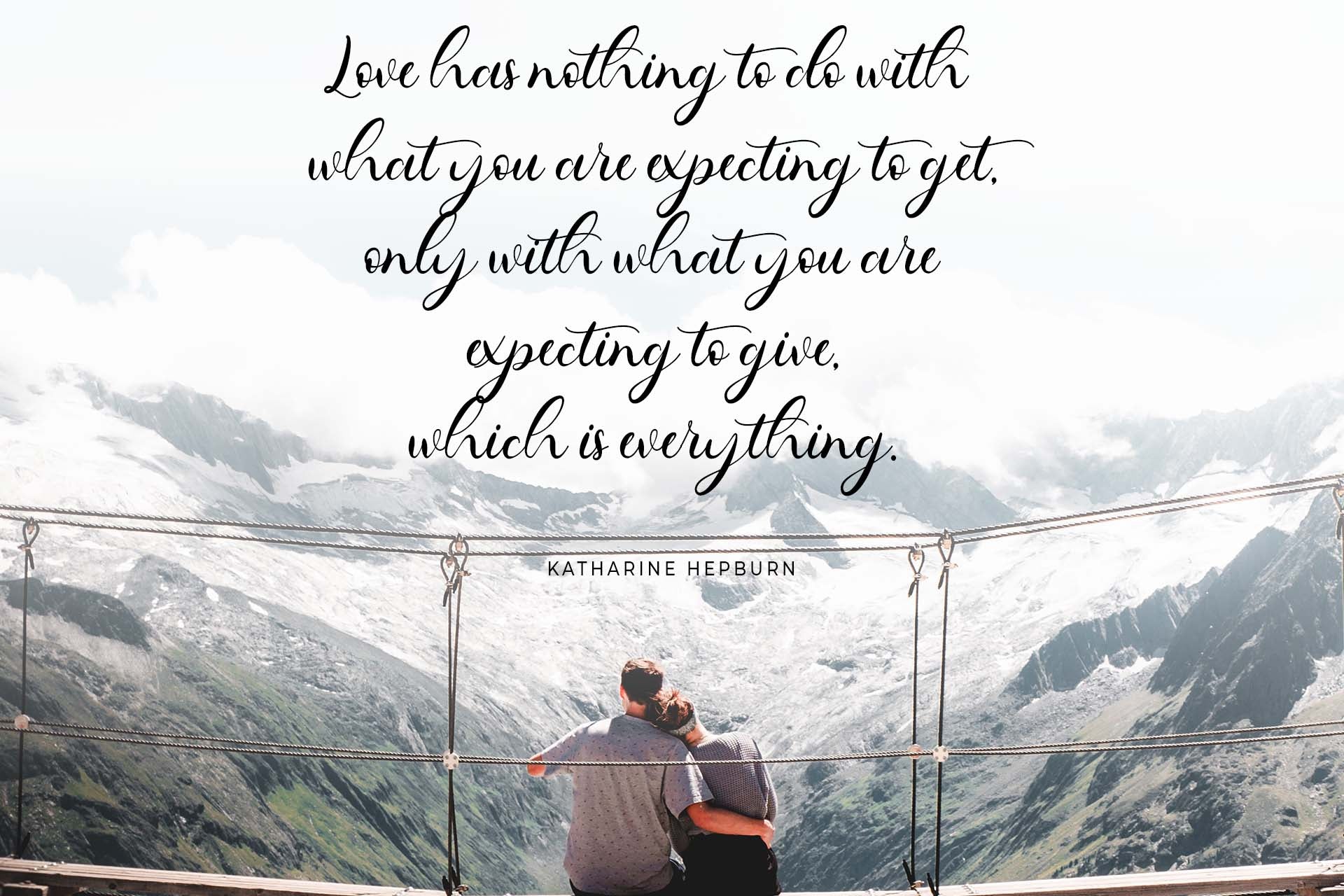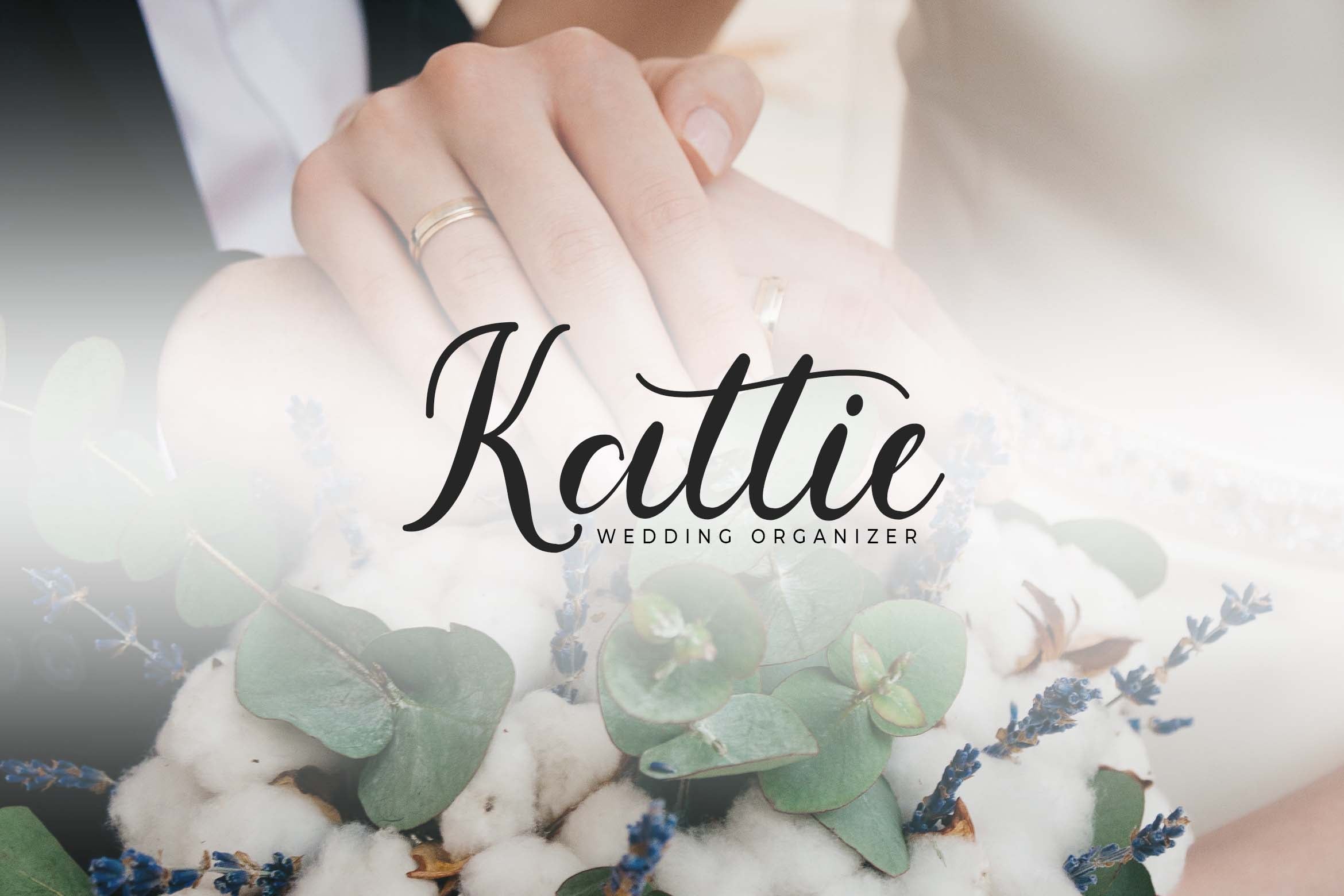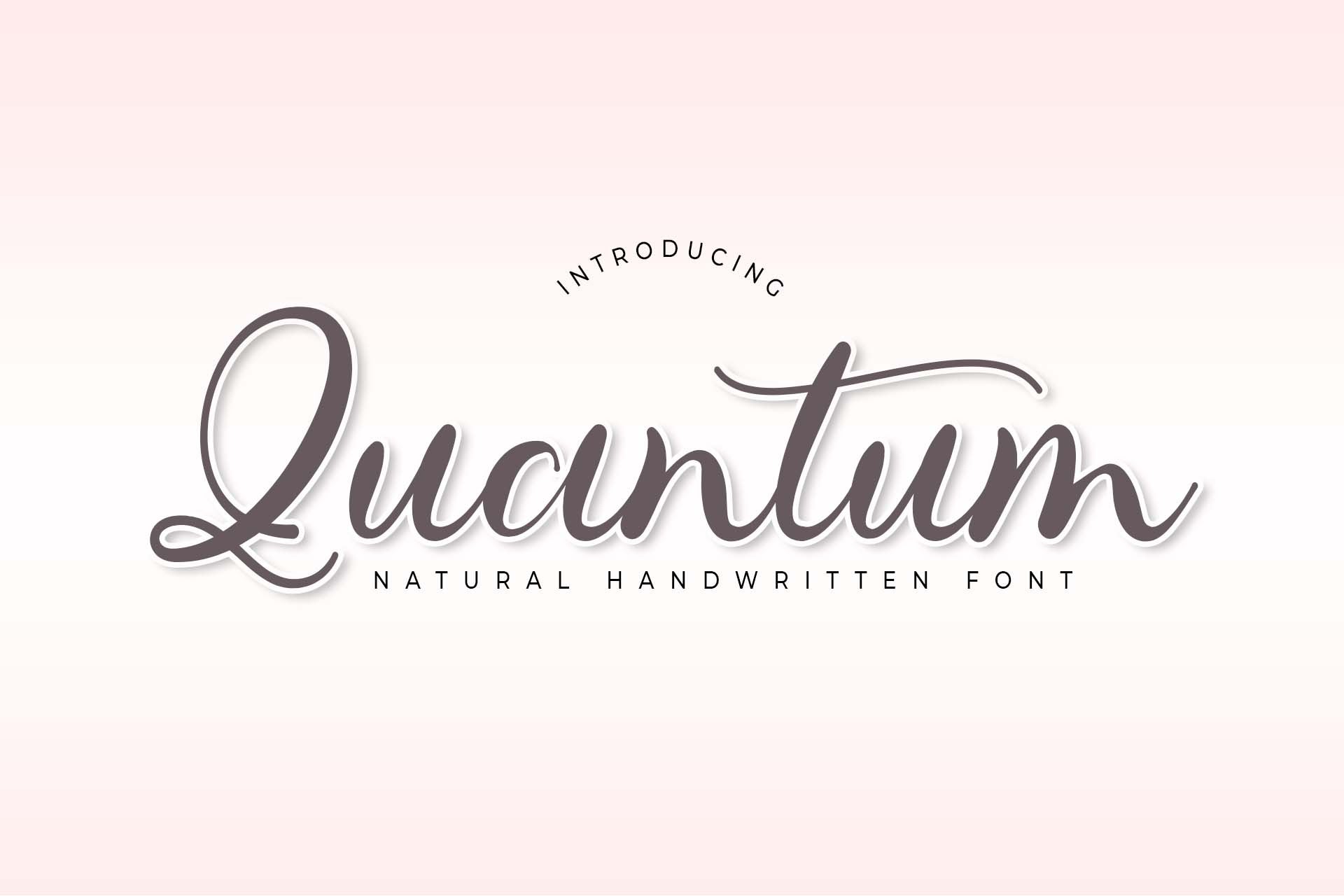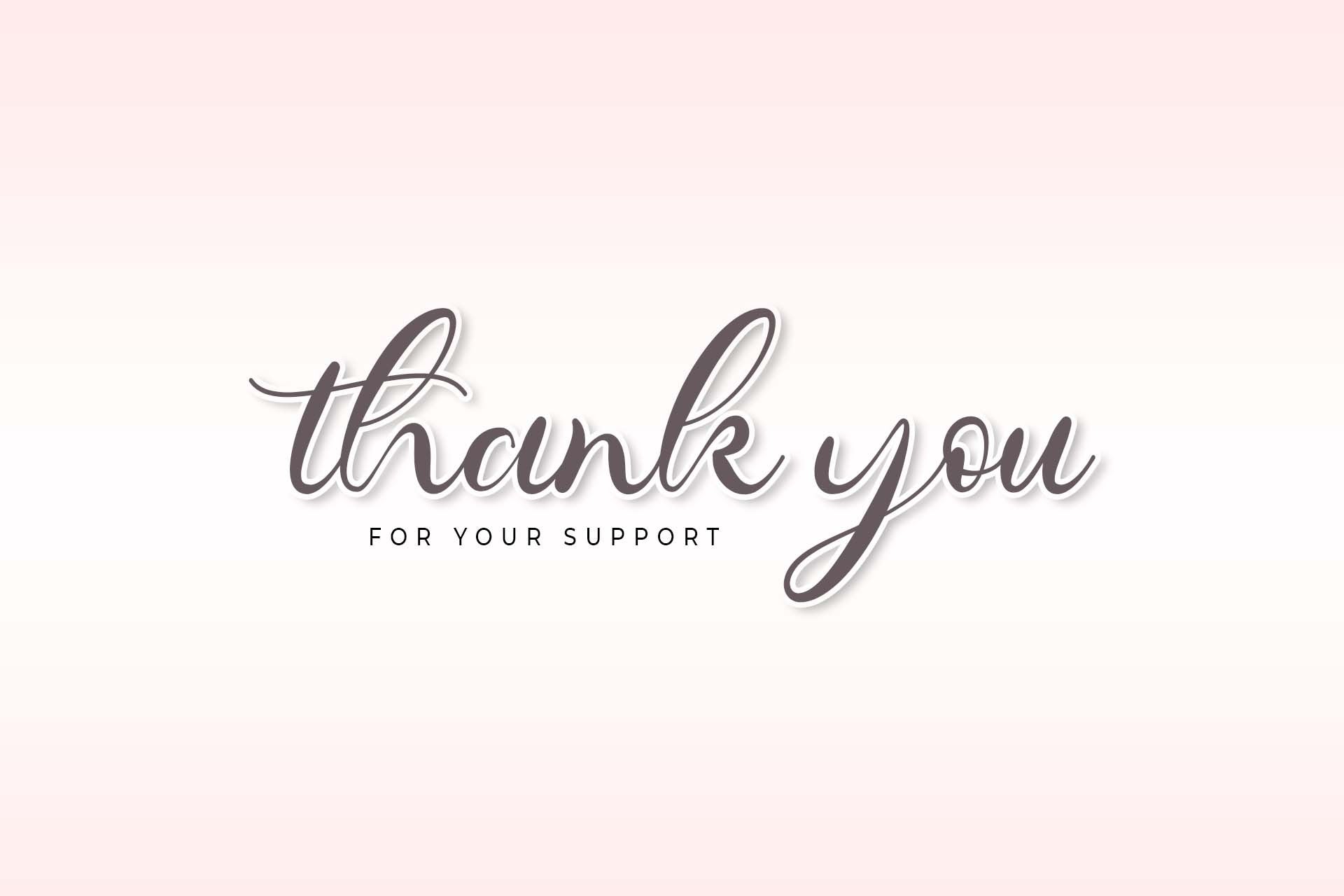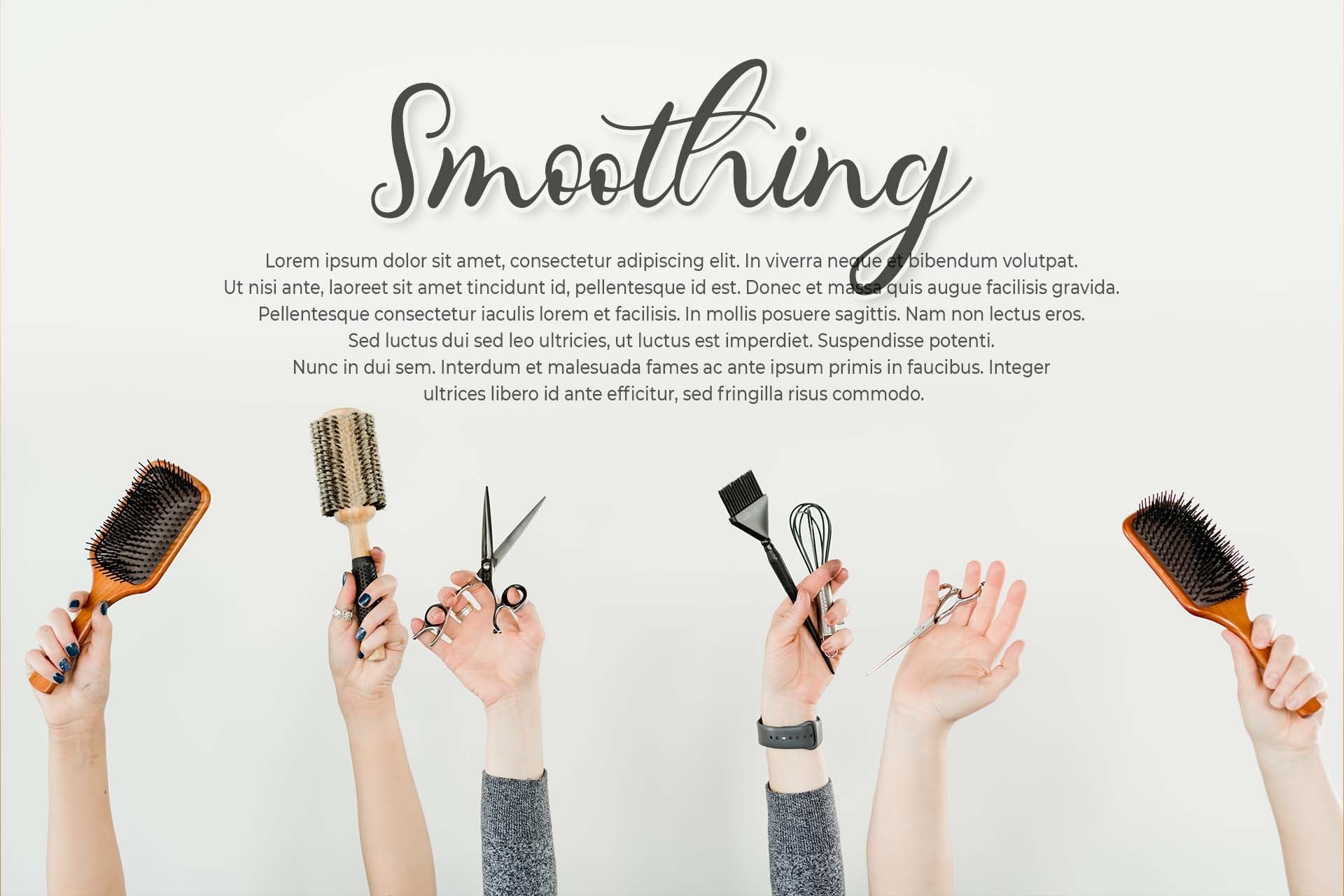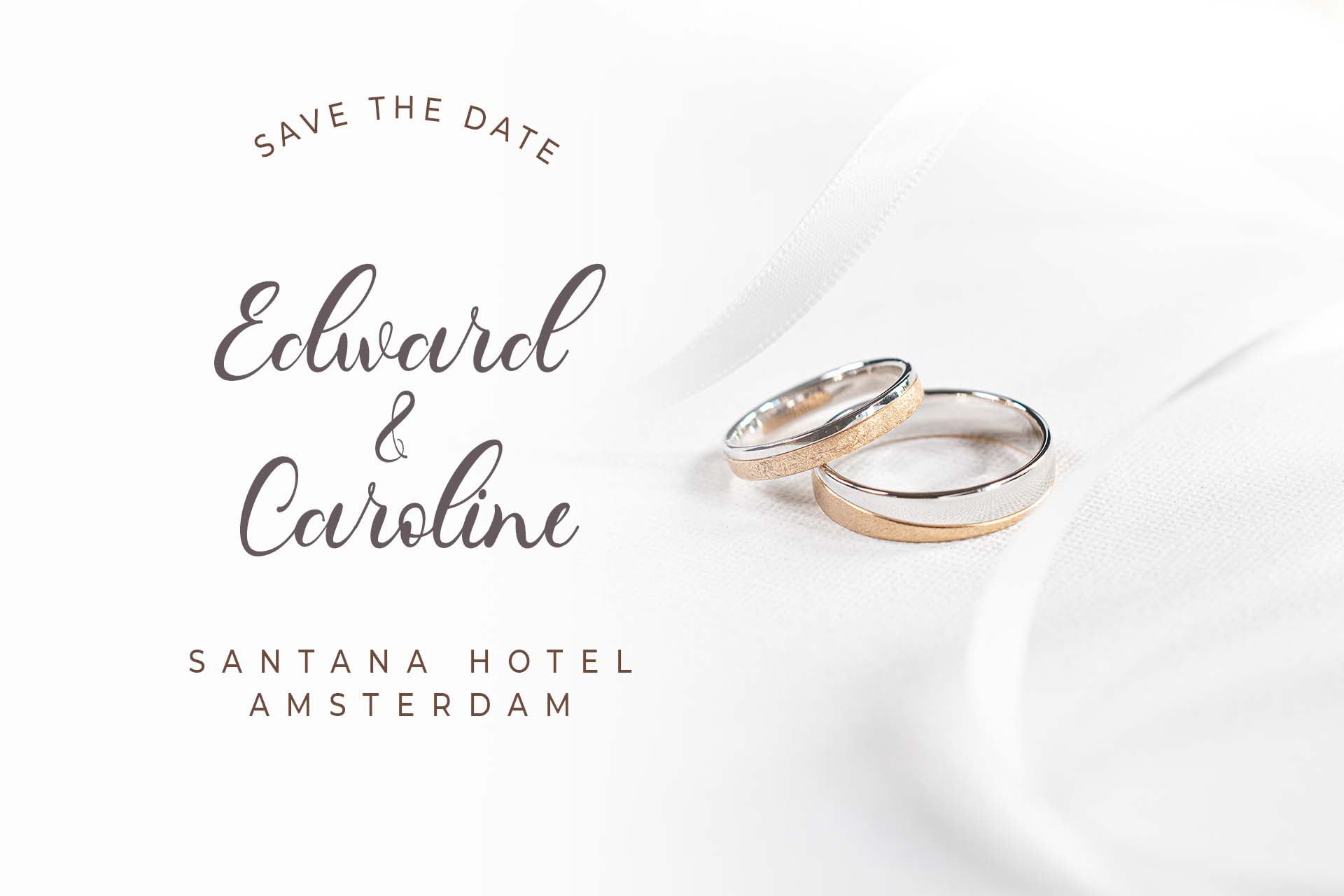
Quantum Script Font
About Quantum Script Font
Quantum is a beautiful light handwritten font with a unique feel and a stunning impact. It will add a luxury spark to any design project that you wish to create! Add this lovely freebie to your creations and take your designs to the next level!